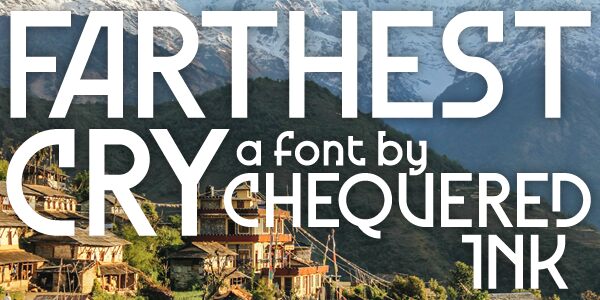
Farthest Cry
Farthest Cry, designed by Chequered Ink, is a captivating font that immediately commands attention. With its bold, angular strokes and sharp edges, this typeface exudes a sense of strength and determination. The angular forms and distinct character shapes create a striking, contemporary aesthetic that evokes a sense of innovation and forward momentum.
Farthest Cry's versatility makes it a compelling choice for a wide range of design applications, from editorial layouts and branding to packaging and digital interfaces. Its clean, legible letterforms lend themselves well to headlines, subheadings, and display text, while the font's unique personality allows it to stand out in more expressive design contexts.